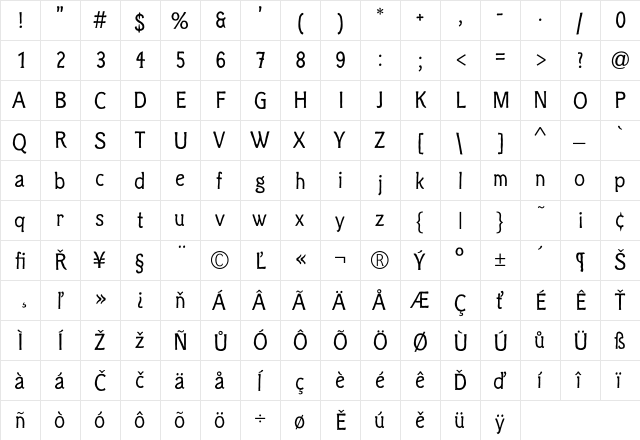
Clichee Regular
Design Context for Clichee Typeface
Clichee offers clean, dependable letterforms without strong stylistic allegiance, making it a practical choice for designers who need flexibility.
Pro Tip: Pair Clichee with a font of contrasting weight or personality to build a more expressive typographic hierarchy.